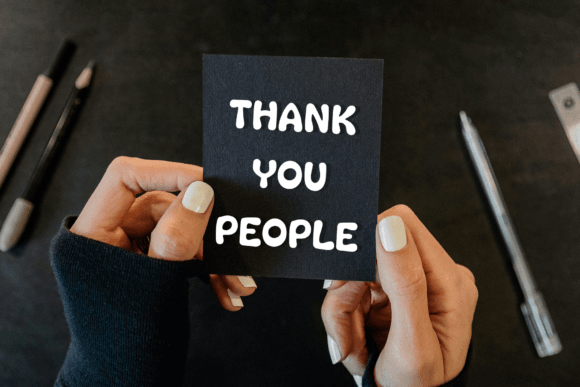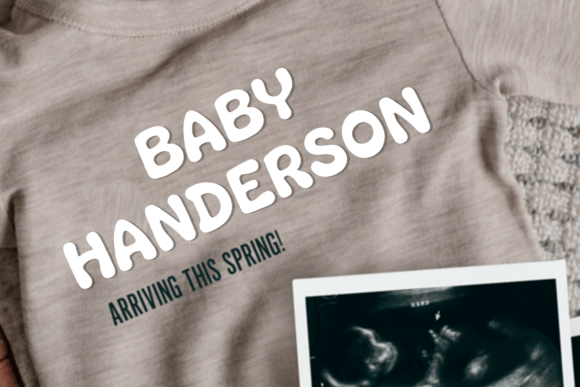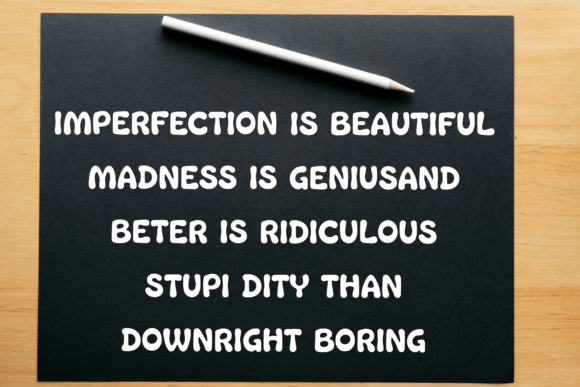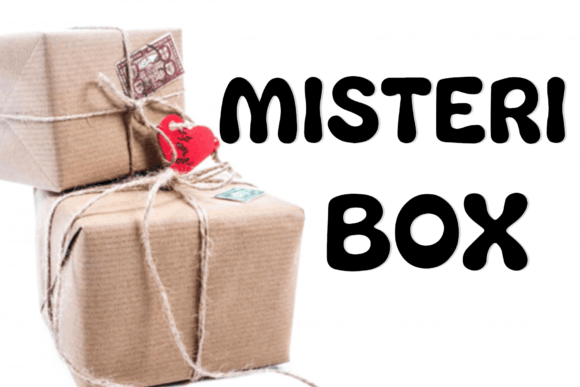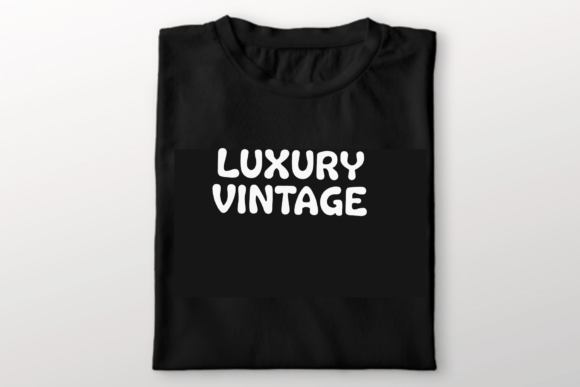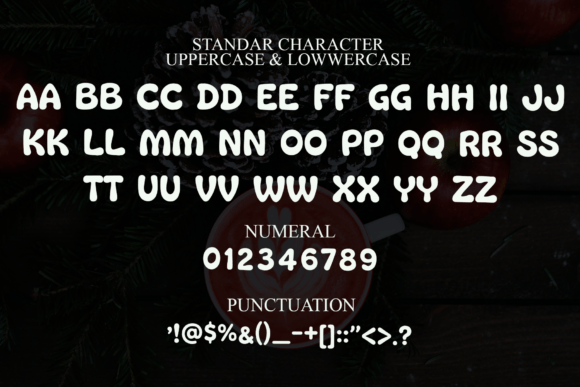
Add a Sweet and Buzzy Energy to Your Creative Work with Autography Font
Are you looking for a font that can add a playful and charming touch to your designs? Look no further than Autography, a delightful display font that radiates warmth and approachability. With its thick, rounded letterforms and soft, bubbly silhouette, Autography is the perfect choice for designers and crafters who want to create a sweet and buzzy energy in their creative work.
The Characteristics of Autography Font
Autography font features thick, rounded letterforms with a soft, bubbly silhouette that feels as smooth as honey. Its charming “sticker-style” outline gives your text instant pop and dimension, making it an exceptional choice for a variety of design projects. The font’s unique characteristics make it stand out from other fonts, and its versatility ensures that it can be used in a range of creative applications.
Perfect for Children’s Brand Identities
Autography font is an excellent choice for children’s brand identities, such as logos, packaging, and marketing materials. The font’s playful and charming design is sure to appeal to kids and parents alike, making it an ideal choice for brands that cater to a young audience. With Autography, you can create a brand identity that is both fun and engaging, helping to establish a strong connection with your target audience.
Playful Food Packaging
Autography font is also perfect for playful food packaging designs. The font’s sweet and buzzy energy is sure to make your food products stand out on store shelves, and its charming design will appeal to customers of all ages. Whether you’re designing packaging for a children’s snack or a specialty food item, Autography font is an excellent choice.
Beehive-Themed Classroom Decor
Autography font is a great choice for beehive-themed classroom decor, such as posters, charts, and other educational materials. The font’s playful and charming design will add a touch of warmth and approachability to your classroom decor, making it an ideal choice for teachers who want to create a engaging and interactive learning environment.
Cheerful Social Media Headers
Autography font is also perfect for cheerful social media headers, such as Facebook and Twitter headers. The font’s sweet and buzzy energy will help your social media profiles stand out, and its charming design will appeal to your followers. With Autography, you can create a social media presence that is both fun and engaging.
Why Choose Autography Font?
There are many reasons why you should choose Autography font for your design projects. Here are just a few:
- Unique and Playful Design: Autography font features a unique and playful design that will add a touch of warmth and approachability to your designs.
- Versatile: Autography font is versatile and can be used in a range of creative applications, from children’s brand identities to playful food packaging.
- Easy to Read: Autography font is easy to read, even at small sizes, making it perfect for a variety of design projects.
- High-Quality: Autography font is a high-quality font that is designed to deliver exceptional results.
How to Use Autography Font
Using Autography font is easy. Here are just a few tips to get you started:
- Use it as a Display Font: Autography font is perfect for use as a display font, where it can add a touch of warmth and approachability to your designs.
- Experiment with Different Colors: Autography font looks great in a range of colors, so don’t be afraid to experiment and find the perfect color for your design.
- Pair it with Other Fonts: Autography font can be paired with other fonts to create a unique and interesting design.
Autography font is a delightful display font that radiates warmth and approachability. With its thick, rounded letterforms and soft, bubbly silhouette, Autography is the perfect choice for designers and crafters who want to create a sweet and buzzy energy in their creative work. Whether you’re designing children’s brand identities, playful food packaging, beehive-themed classroom decor, or cheerful social media headers, Autography font is an excellent choice. So why wait? Download Autography font today and start adding a touch of warmth and approachability to your designs.